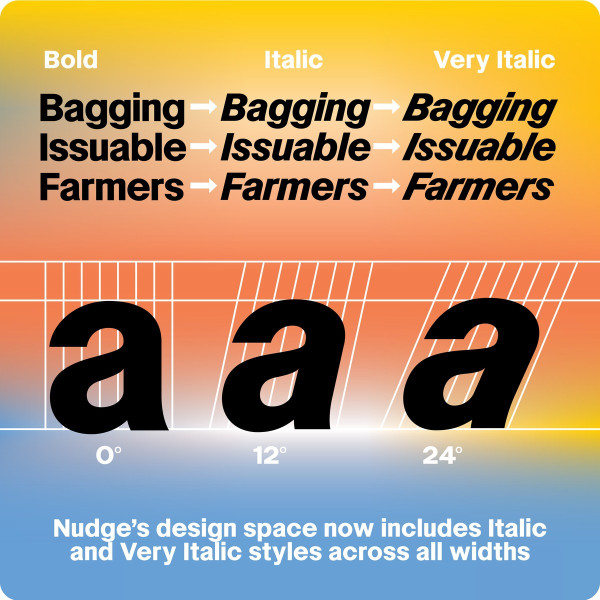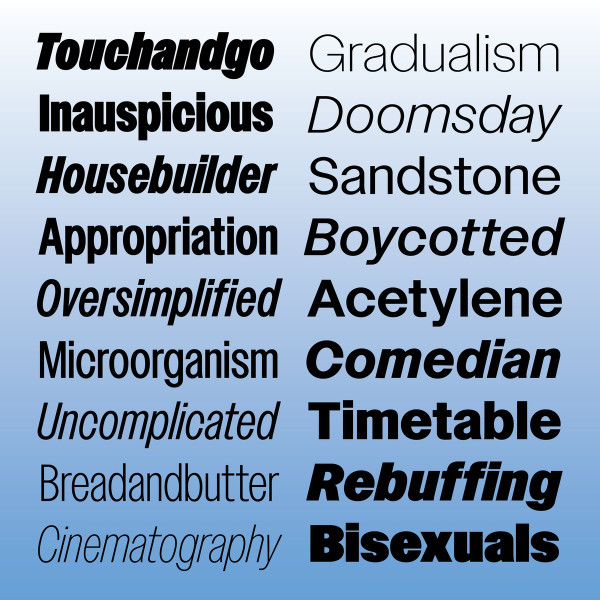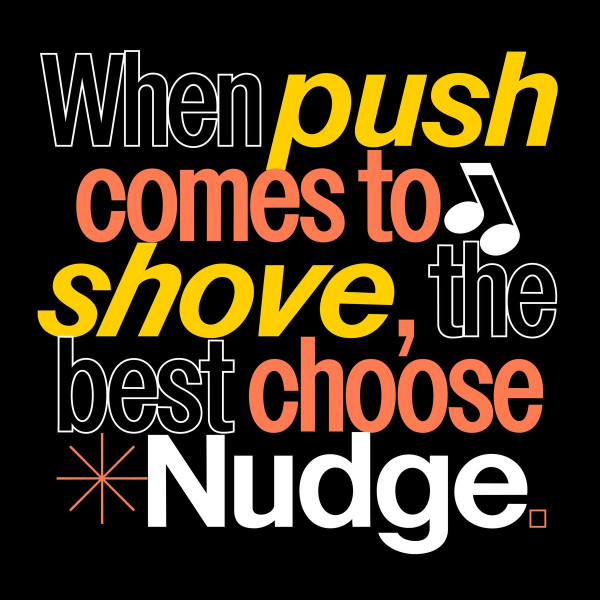
Nudge Font
Nudge Font. It’s a condensed gothic sans. It’s a design based on a dog defecation sign composed of letters hand cut out of vinyl which I saw at Silver Lake Reservoir in LA. It stood out for having an uncharacteristically narrow n shape, and nearly closed apertures.
It is named after a verb I use to describe hand-kerning. Spacing/kerning is at the foundation of how most good type works and I love technologies like Letraset which threw that broom out with the dust and allowed some play.
Nudge is in that vein. The contrast is low, the tapers are hardly visible. The rules feel a little broken, I’m not keeping track of which.
With an X-Acto blade, a basic memory of Helvetica Condensed, half a Letraset sheet for Avant Garde Medium Condensed, and 15 minutes, you might create Nudge.